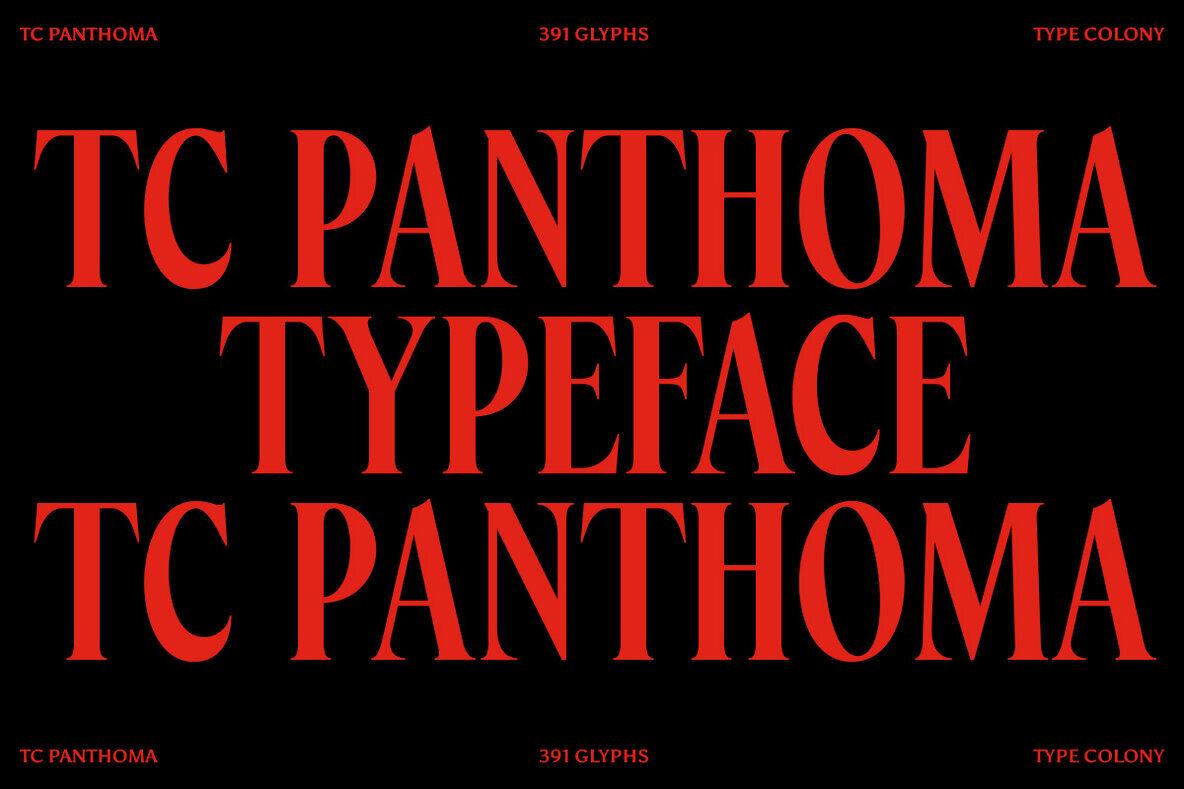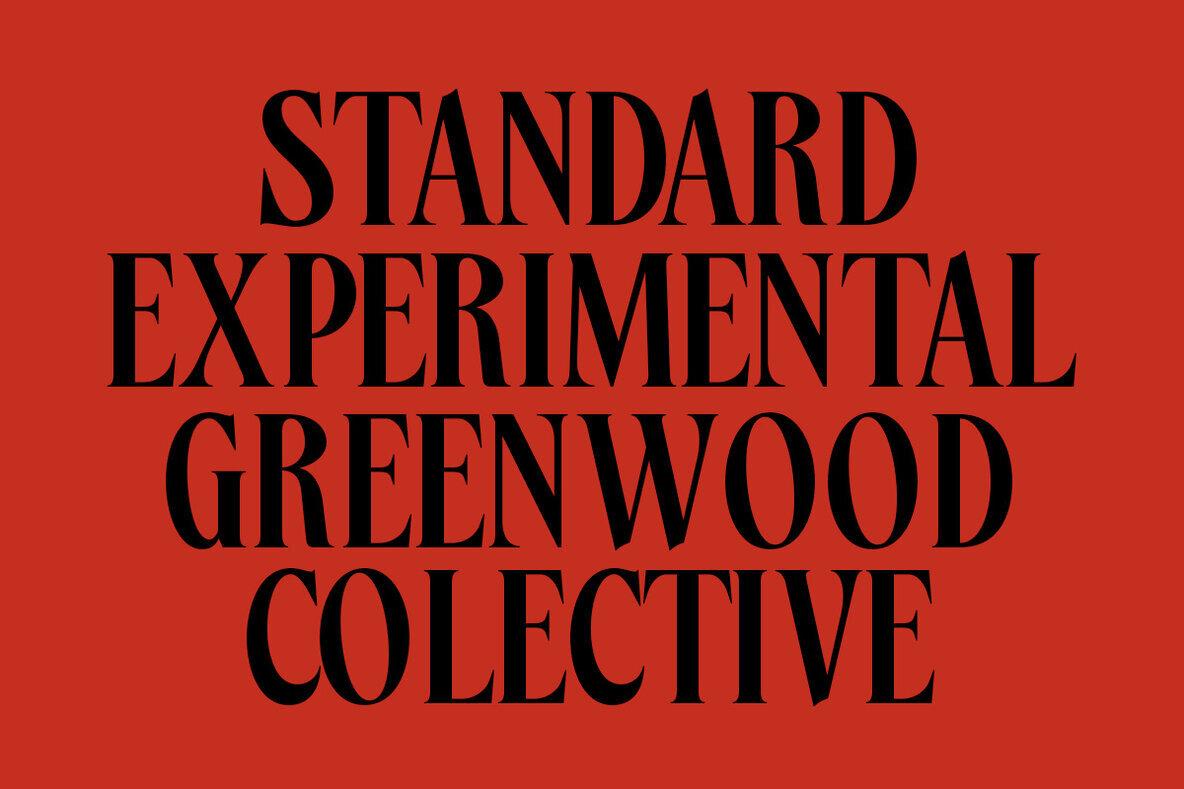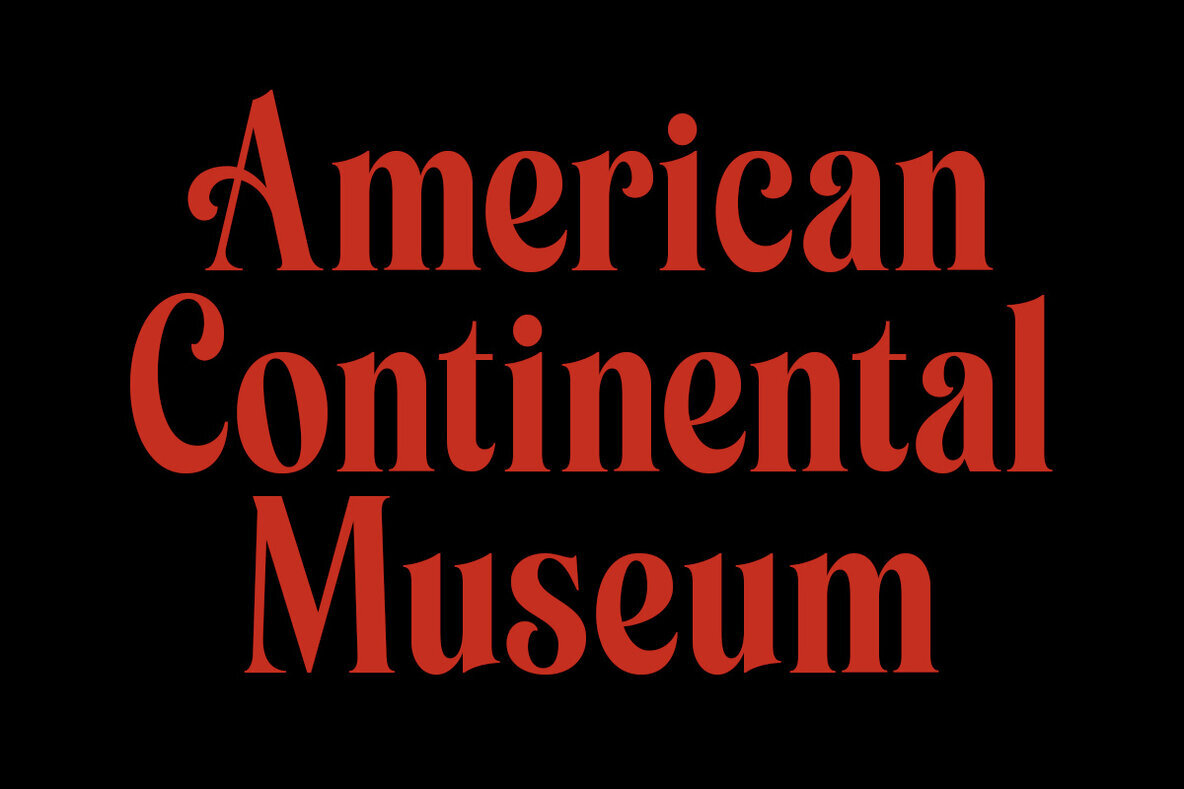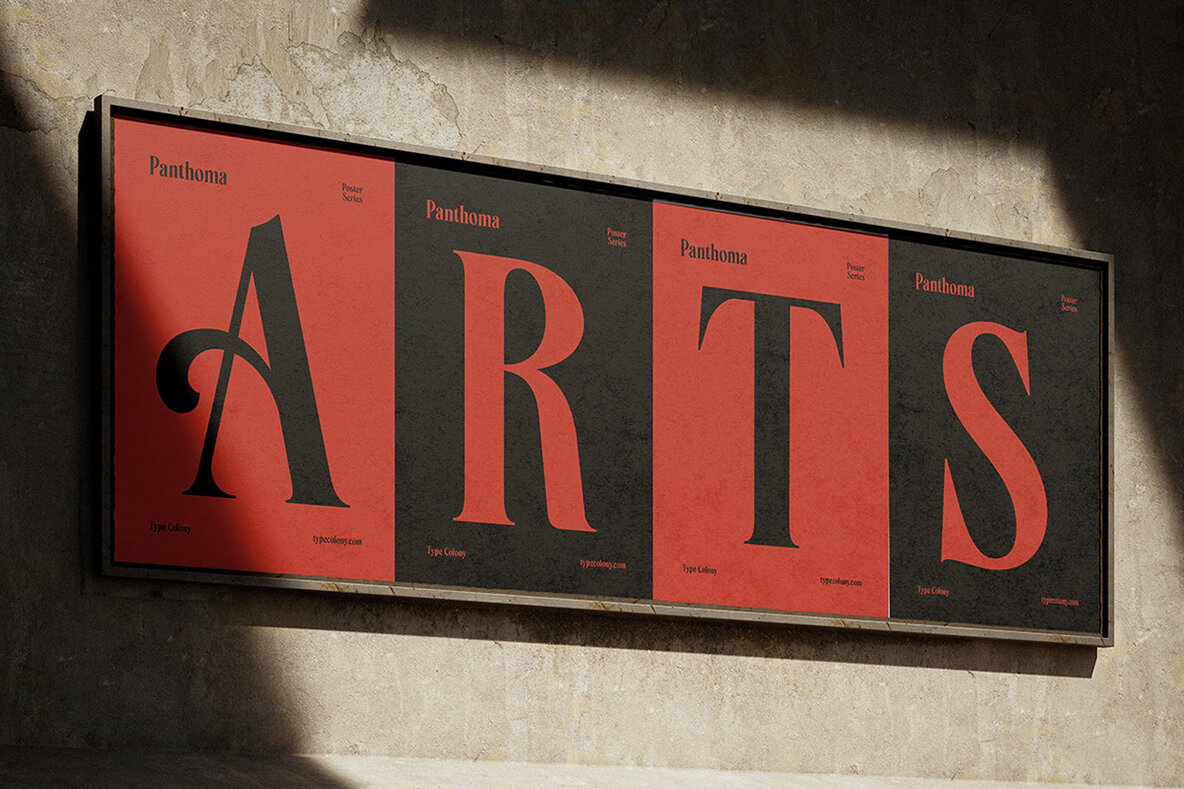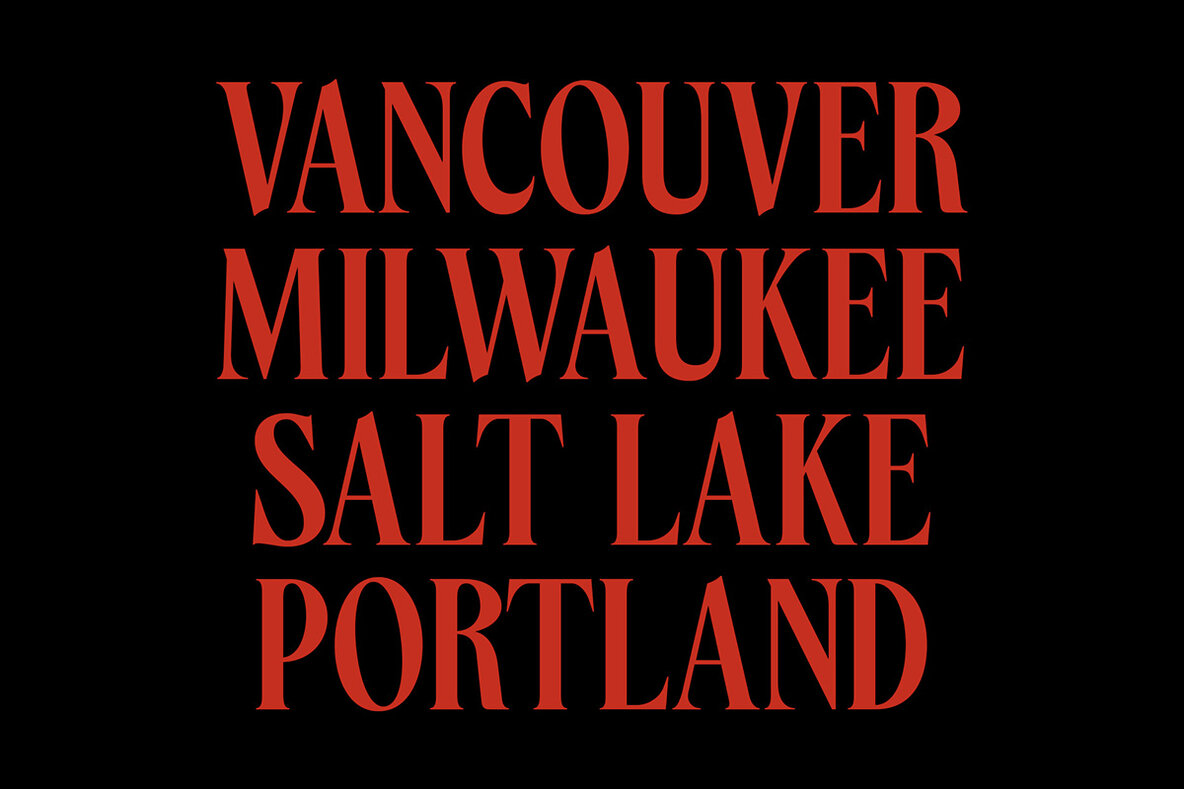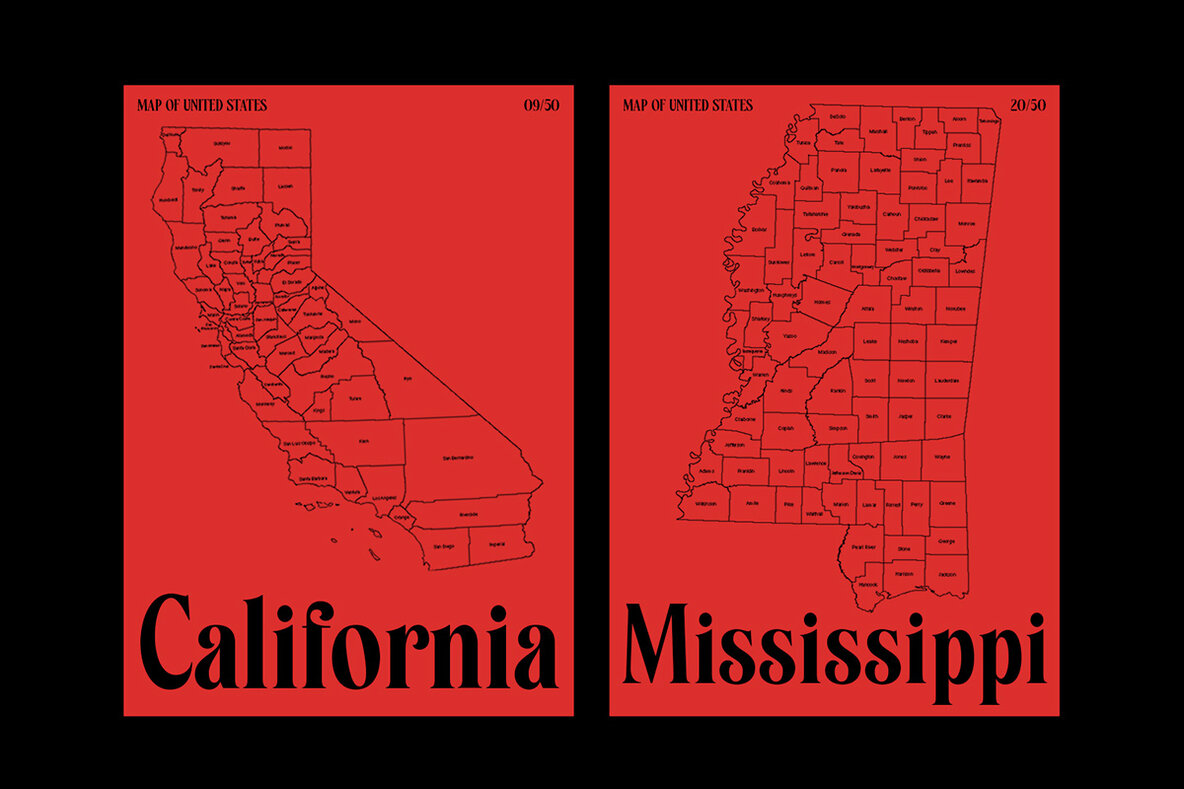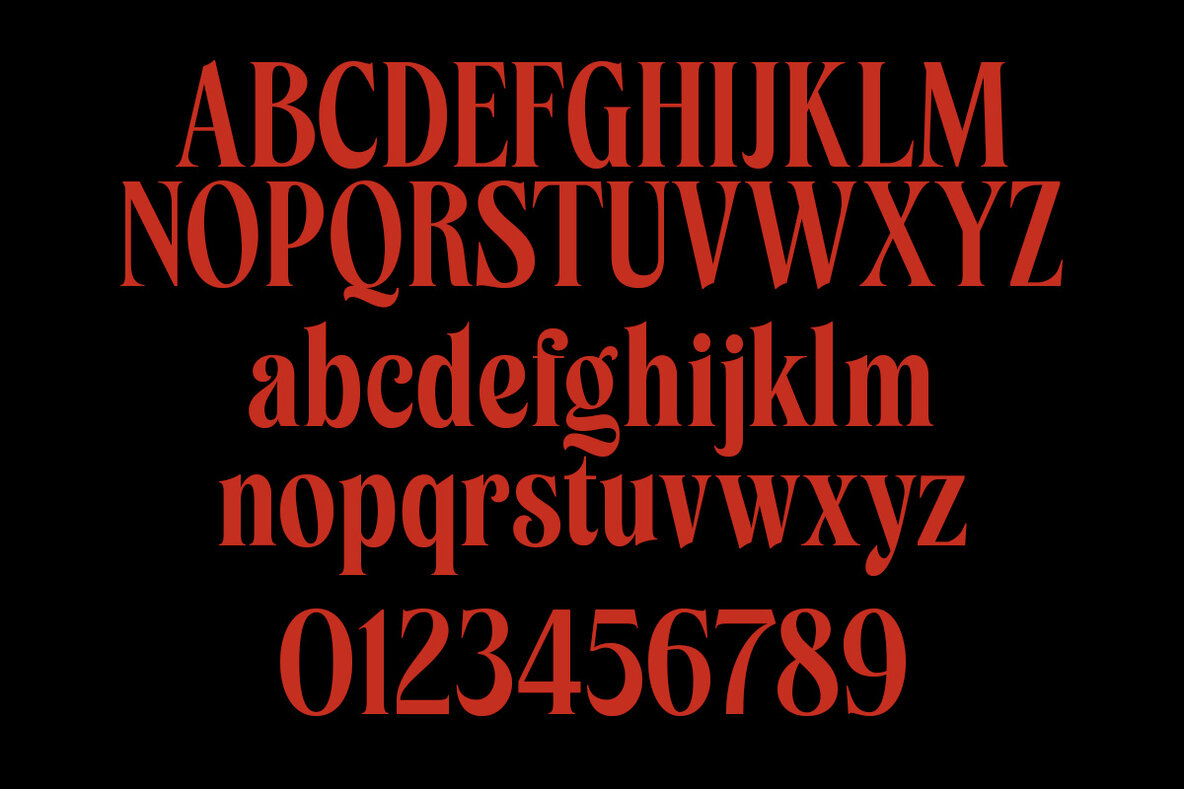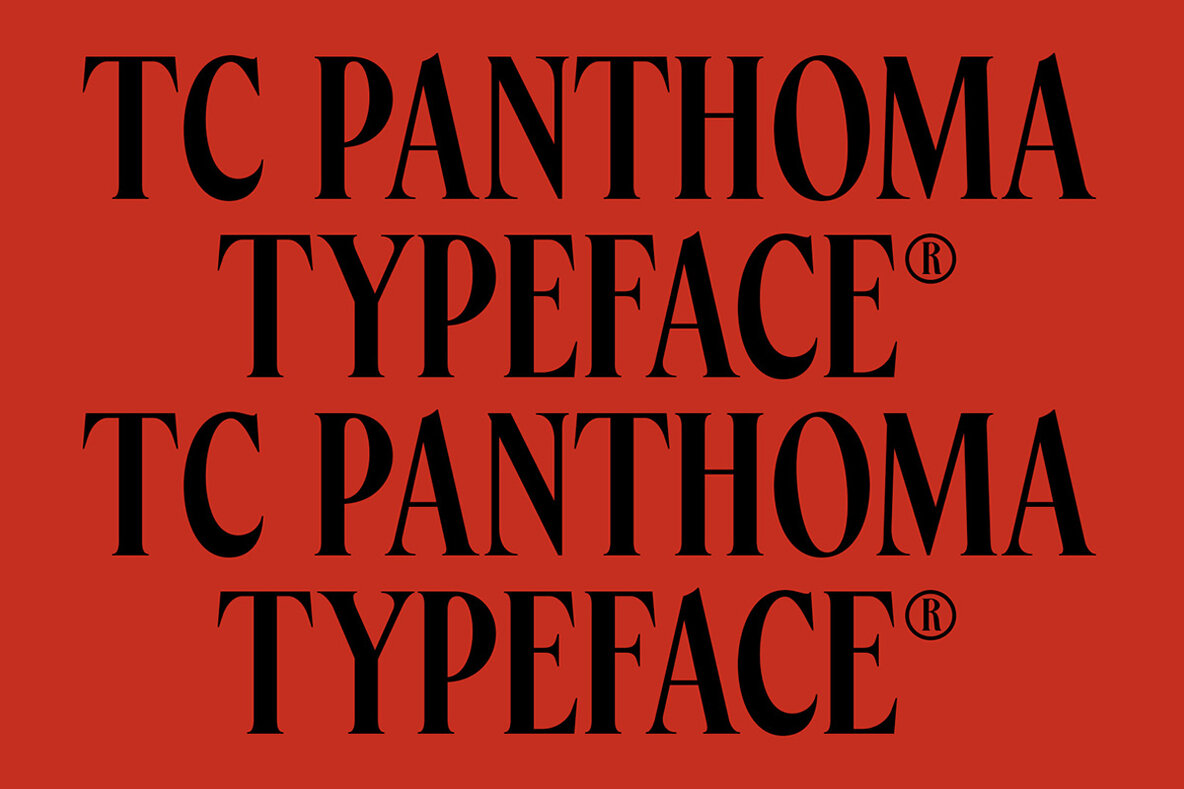
TC Panthoma Font
TC Panthoma is a striking serif typeface crafted to command attention and convey confidence. Its sharp contours and elegant curves merge to create a dramatic interplay that speaks of both timeless editorial charm and modernity. Supporting 36 languages and featuring alternative characters, this font becomes a versatile asset for any design project. Inspired by the expressive serif traditions found in vintage publishing and contemporary fashion, TC Panthoma is ideal for a range of applications. Whether you're crafting headlines, branding, posters, or editorial layouts, this typeface provides a perfect balance of sophistication and bold personality, making it a superb choice for identity design.TC Panthoma: Bold Serif Typeface With a Timeless Edge